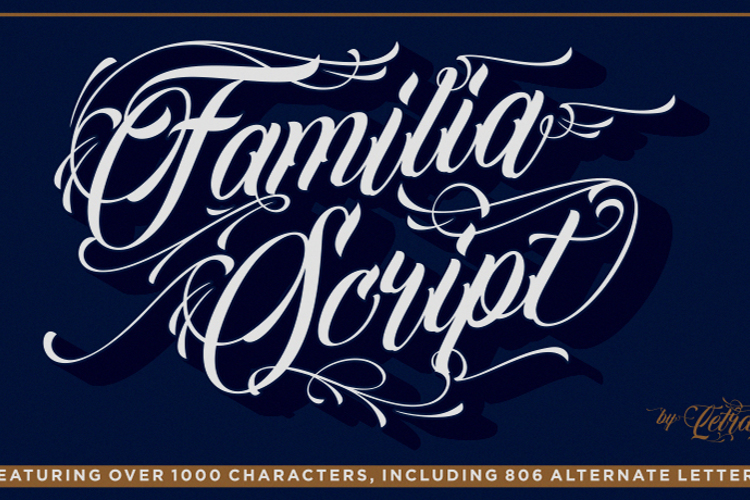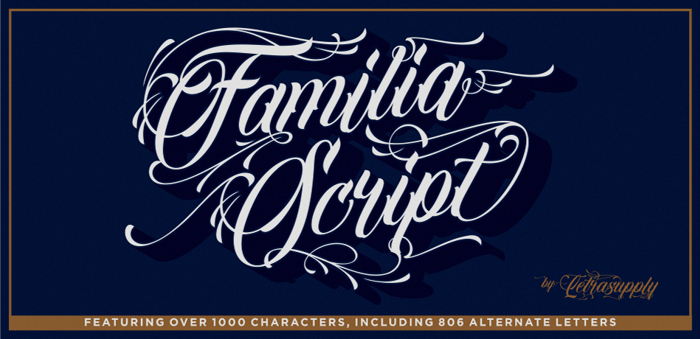
Familia Script Font
About Familia Script Font
It's a beautiful, elegant, clean and unique typeface you need to have! Contains over 1000 glyphs, it has many alternate characters so you can make a beautiful decorative type easily. Familia Script is truly a perfect script for any project that's need delicate typeface such as custom name, greeting card, create logos, etc. A handy font for tattoo designer and artsy creative people!